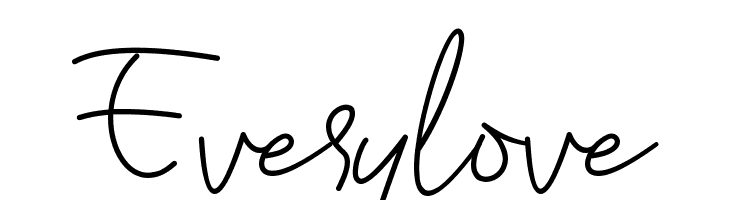
A lively, flowing handwritten font with smooth cursive strokes and playful loops.
A playful and energetic handwritten script font with smooth, connected strokes.
A dynamic, handwritten font with elongated, slanted characters.
A playful, handwritten font with rounded edges and a casual style.
A flowing, cursive font with elegant, connected characters.